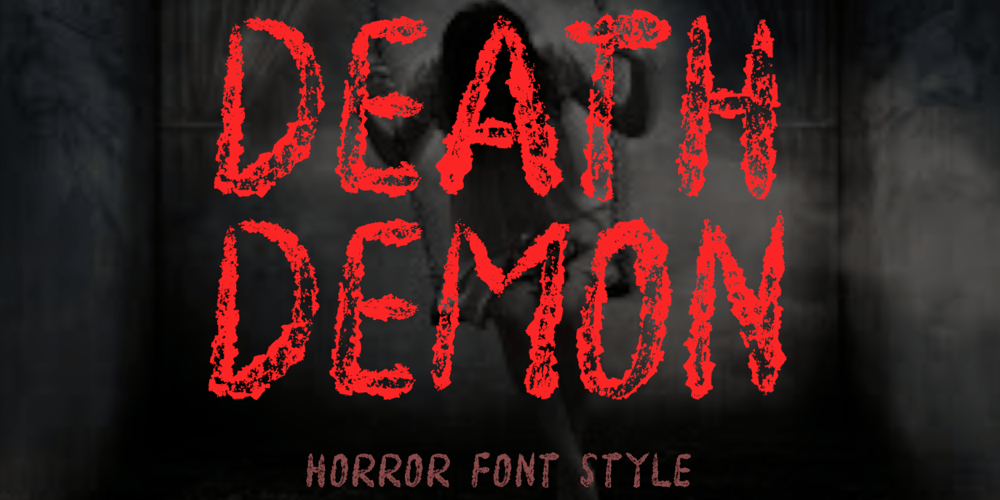
Death Demon
Death Demon font
Death Demon Font Family was designed by Isroni Yoga Prasetya and published by Yoga Letter. Death Demon contains 1 styles and family package options. “Death Demon” is a horror font that is very scary and full of mystery. This font is perfect for Halloween moments, movie titles, book titles, Halloween party invitations, and more. Equipped with uppercase, lowercase, numerals, punctuation, and multilingual support.